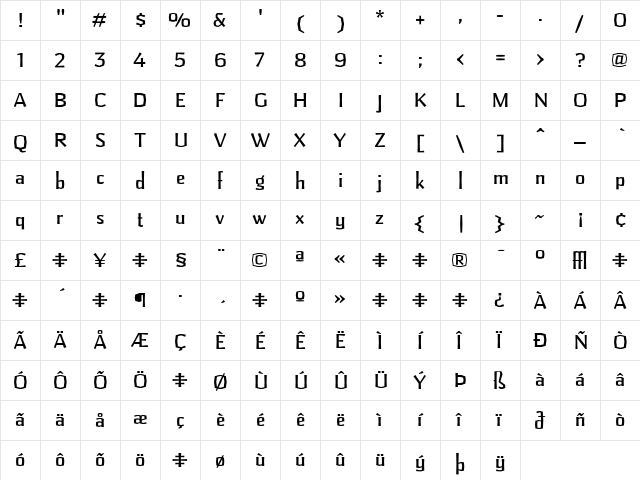
Pilsner Regular
| Foundry | Copr. Tobias Frere-Jones, designer. Produced by The Font Bureau, Inc |
Design Context for Pilsner Typeface
Pilsner offers clean, dependable letterforms without strong stylistic allegiance, making it a practical choice for designers who need flexibility.